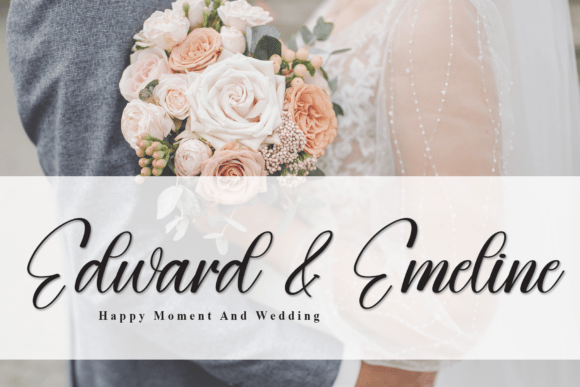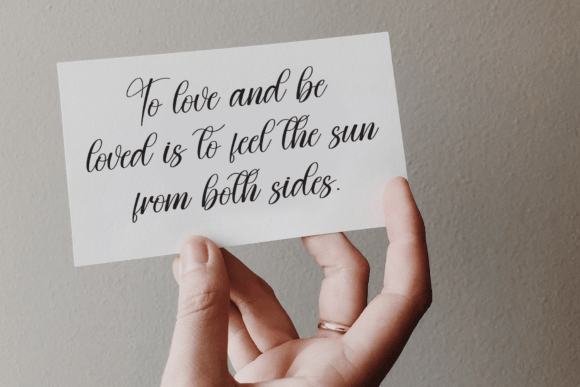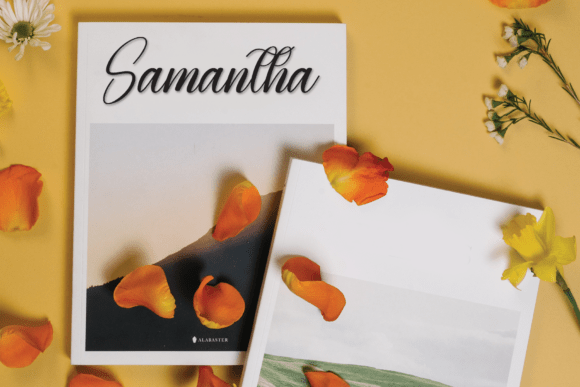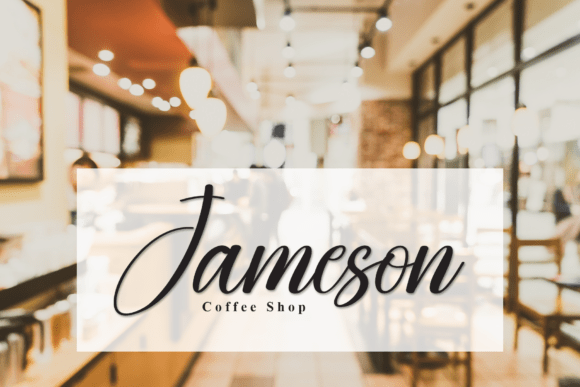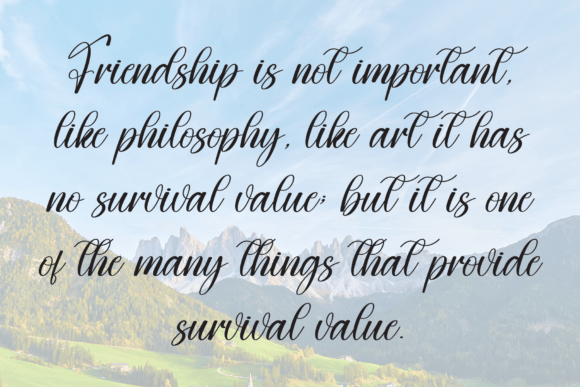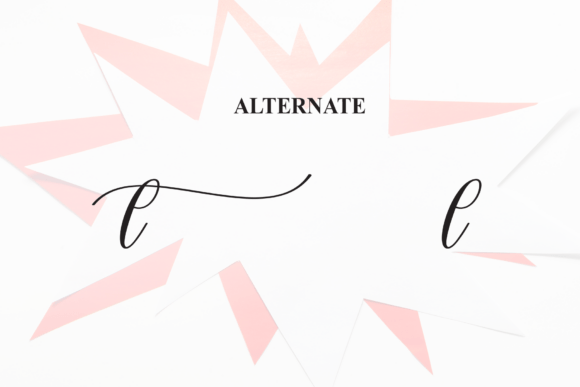
Discover the Energetic and Stylish Destration Font: Elevate Your Designs with a Spirited Italic Script
Are you on the lookout for a font that embodies energy, modern sophistication, and a touch of handmade elegance? Look no further than the Destration Font, a spirited and contemporary italic script font designed to bring a sense of dynamic movement and stylish flair to your designs. In this article, we’ll dive into the features, benefits, and uses of the Destration Font, and explore how it can elevate your creative projects.
What is Destration Font?
Destration is a carefully crafted italic script font that captures the essence of quick, confident handwriting. Its slender forms and smooth, connecting strokes create an appealing, casual elegance that is perfect for a wide range of design applications. The font’s italic angle adds a sense of forward-moving motion, making it ideal for designs that need to convey enthusiasm, energy, and modern sophistication.
Key Features of Destration Font
- Spirited and Contemporary Design: Destration boasts a fresh and modern design that is sure to grab attention.
- Italic Script Style: The font’s italic angle creates a sense of dynamic movement, perfect for conveying energy and enthusiasm.
- Slender Forms and Smooth Strokes: The font’s slender forms and smooth, connecting strokes create a stylish and elegant look.
- PUA-Encoded: The font is PUA-encoded, allowing effortless access to all glyphs, swashes, and alternate characters.
- Clear Legibility: The font’s sleek style ensures that it works beautifully as both a captivating headline and a stylish, easy-to-read text element.
Uses of Destration Font
Destration Font is a versatile font that can be used in a variety of design applications, including:
- Logo Watermarks: Add a touch of elegance and sophistication to your logo watermarks with Destration Font.
- Product Packaging: Use the font to create eye-catching and stylish product packaging that stands out on store shelves.
- Social Media Quotes: Add a dash of energy and enthusiasm to your social media quotes with Destration Font.
- Inspirational Posters: Create motivational and stylish posters that inspire and engage your audience.
- Fashion Branding: Use the font to create stylish and modern fashion branding that exudes elegance and sophistication.
Benefits of Using Destration Font
By using Destration Font in your designs, you can:
- Elevate Your Designs: Add a touch of elegance and sophistication to your designs with Destration Font.
- Convey Enthusiasm and Energy: The font’s dynamic movement and stylish flair make it perfect for designs that need to convey enthusiasm and energy.
- Stand Out from the Crowd: Use Destration Font to create unique and eye-catching designs that stand out from the crowd.
- Save Time: The font’s PUA-encoded feature allows effortless access to all glyphs, swashes, and alternate characters, saving you time and effort.
In conclusion, Destration Font is a spirited and contemporary italic script font that is perfect for designers and crafters looking to add a touch of elegance and sophistication to their designs. With its dynamic movement, stylish flair, and clear legibility, Destration Font is ideal for a wide range of design applications, from logo watermarks to fashion branding. So why wait? Discover the energetic and stylish Destration Font today and elevate your designs to the next level!